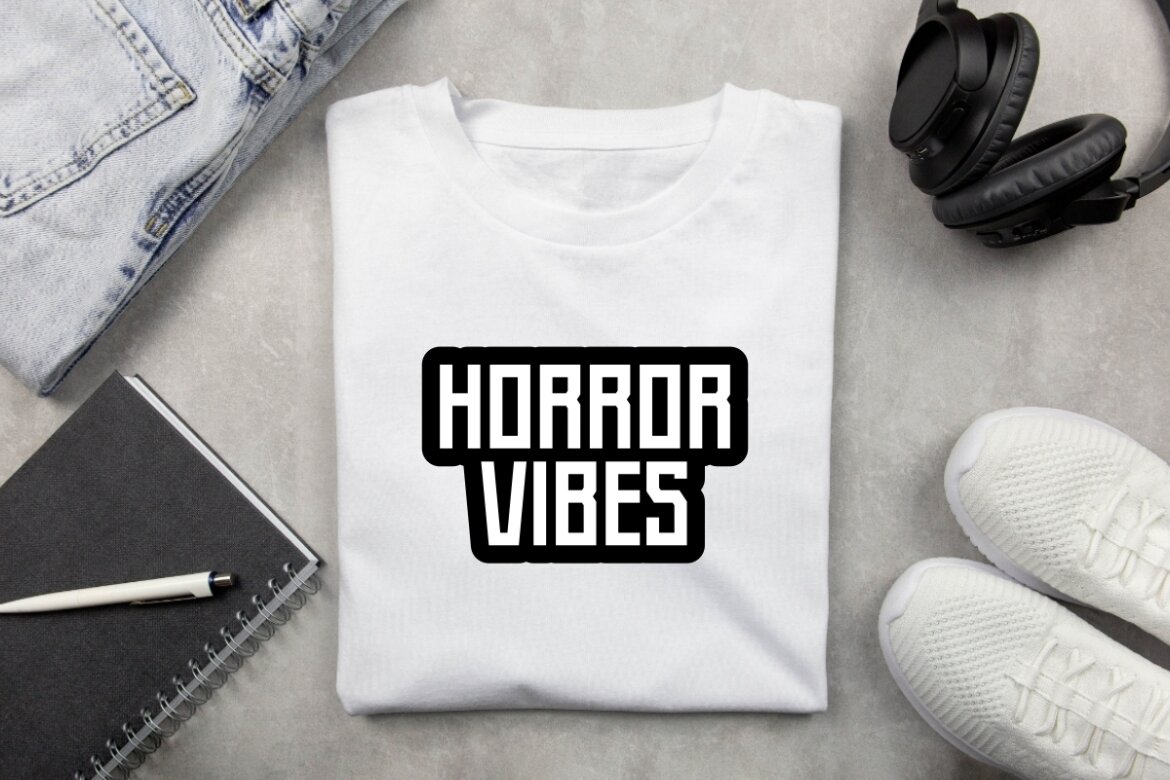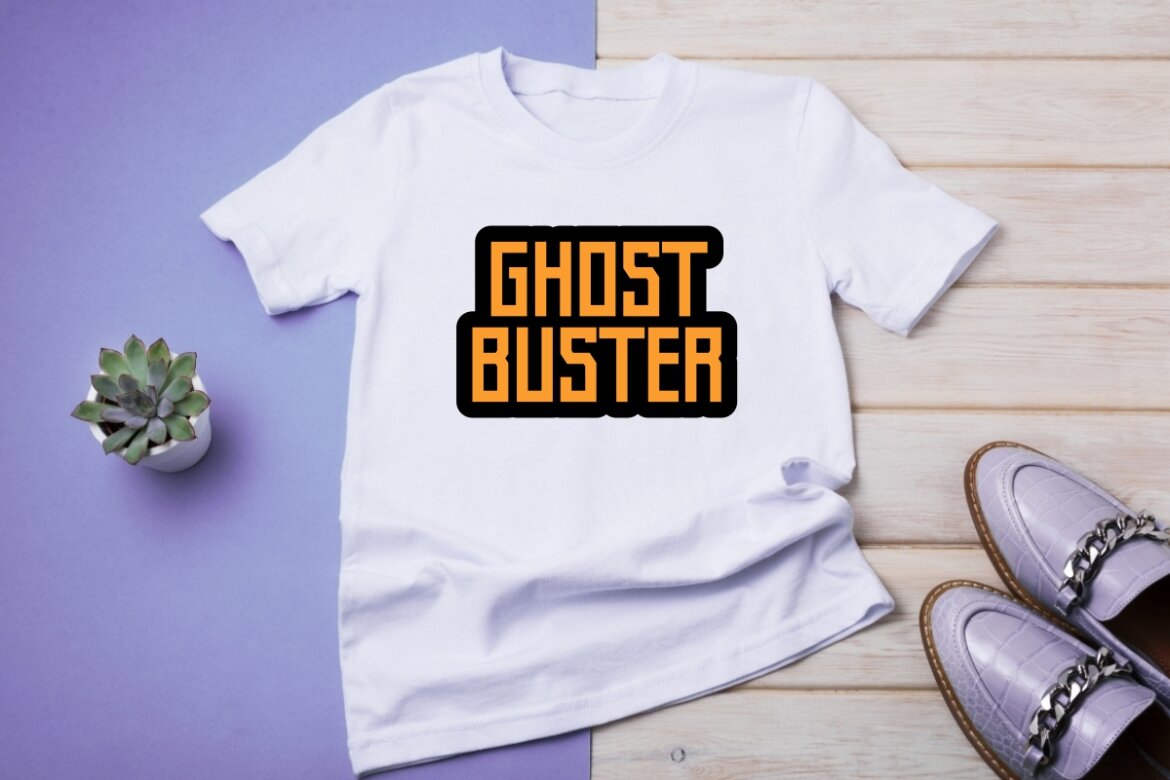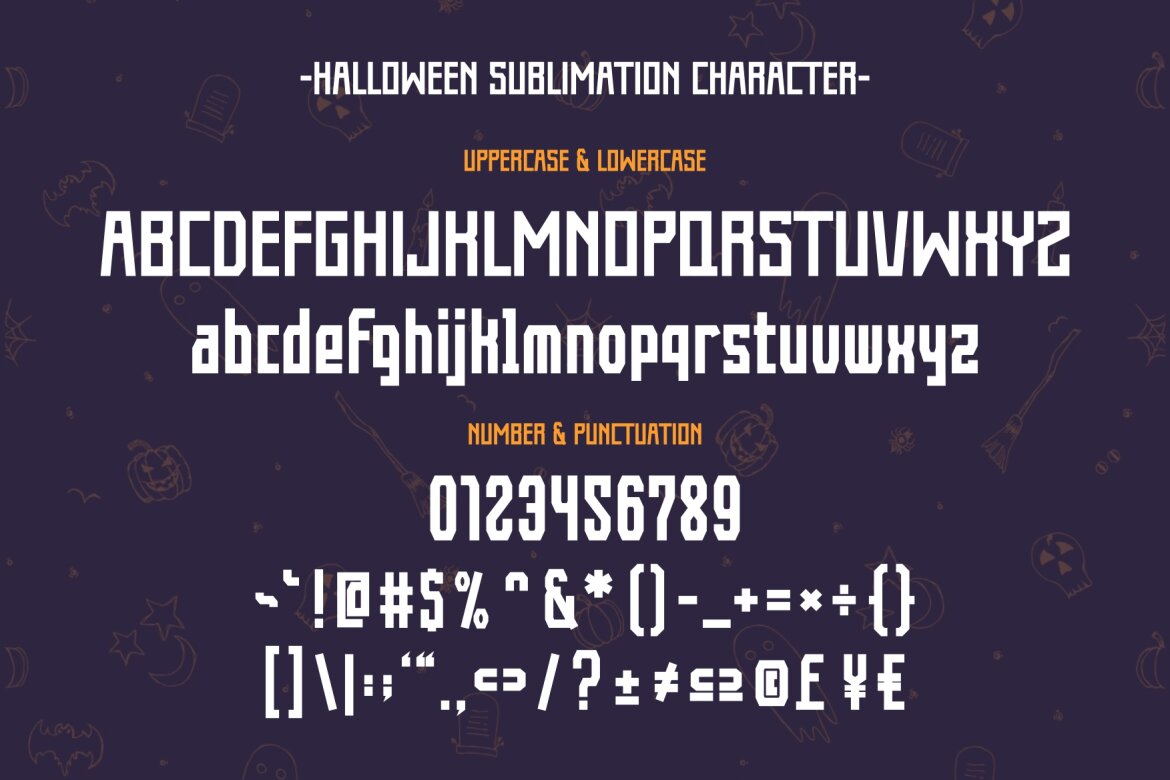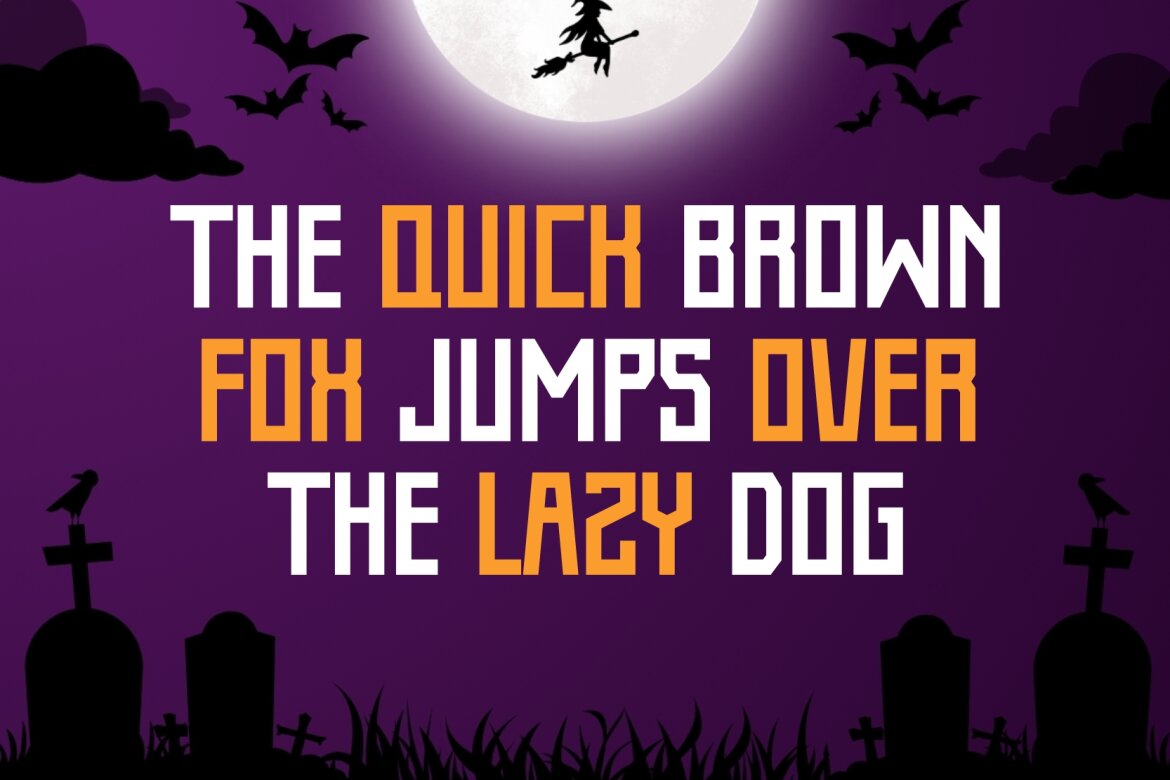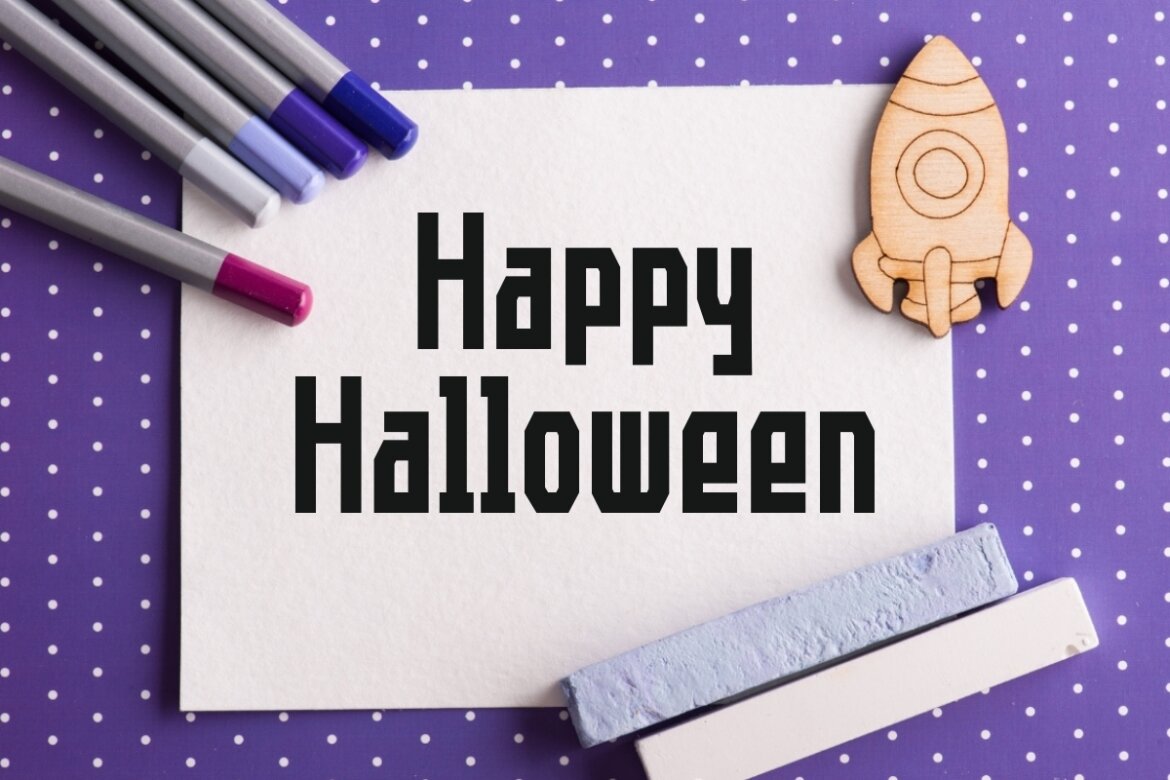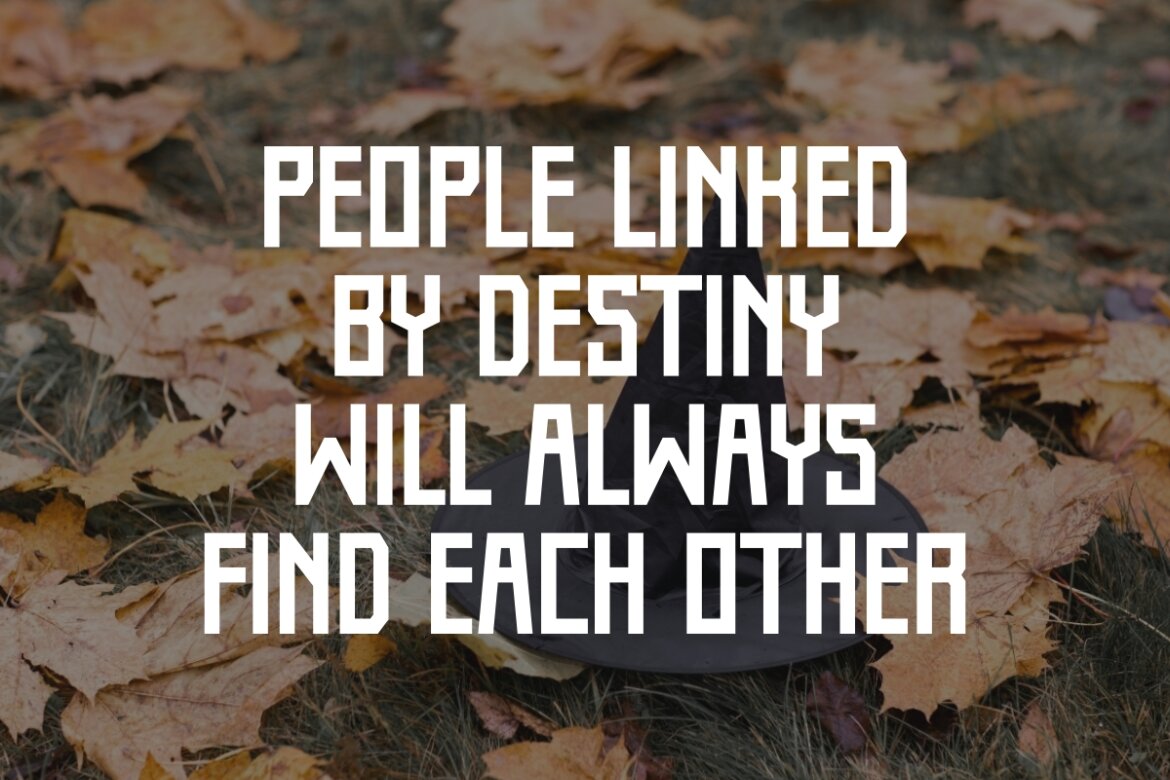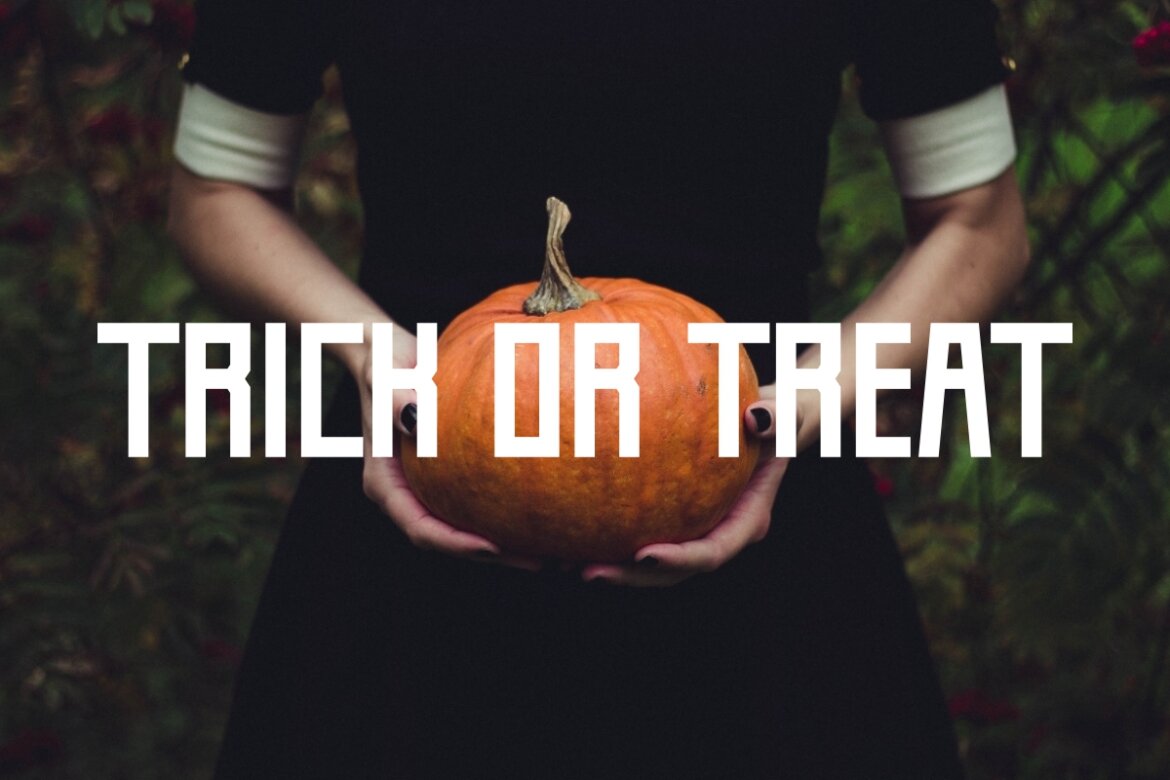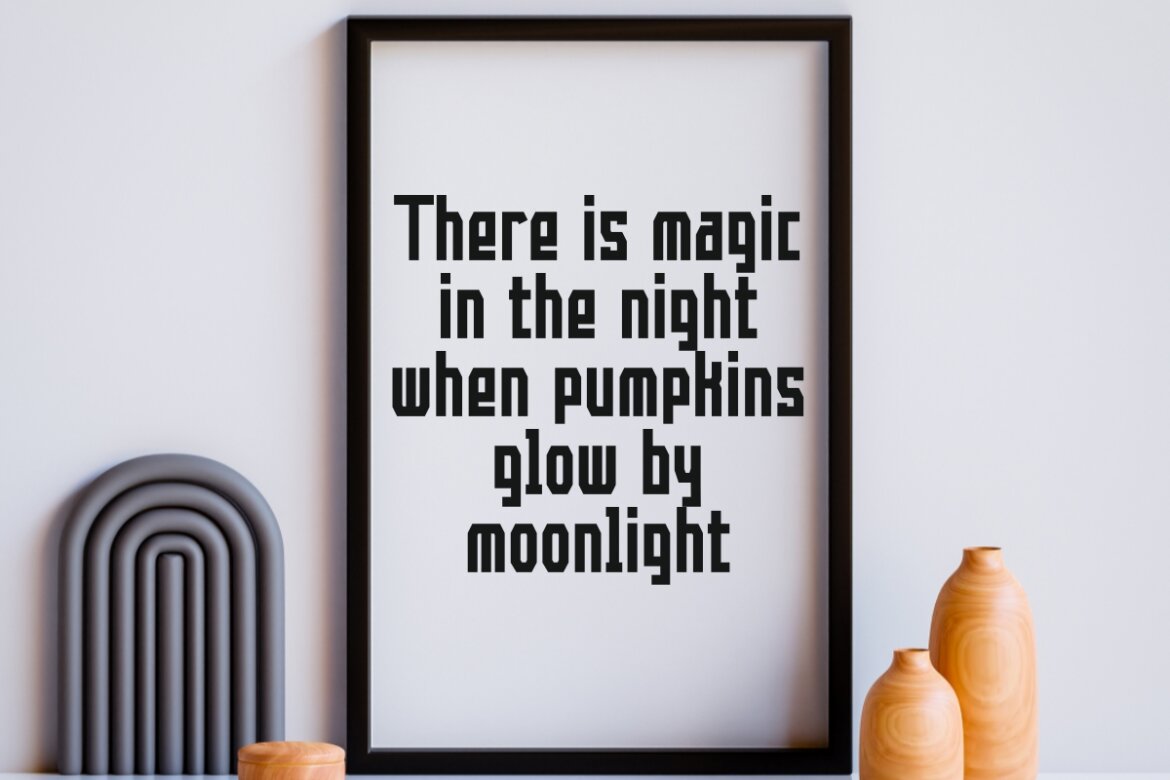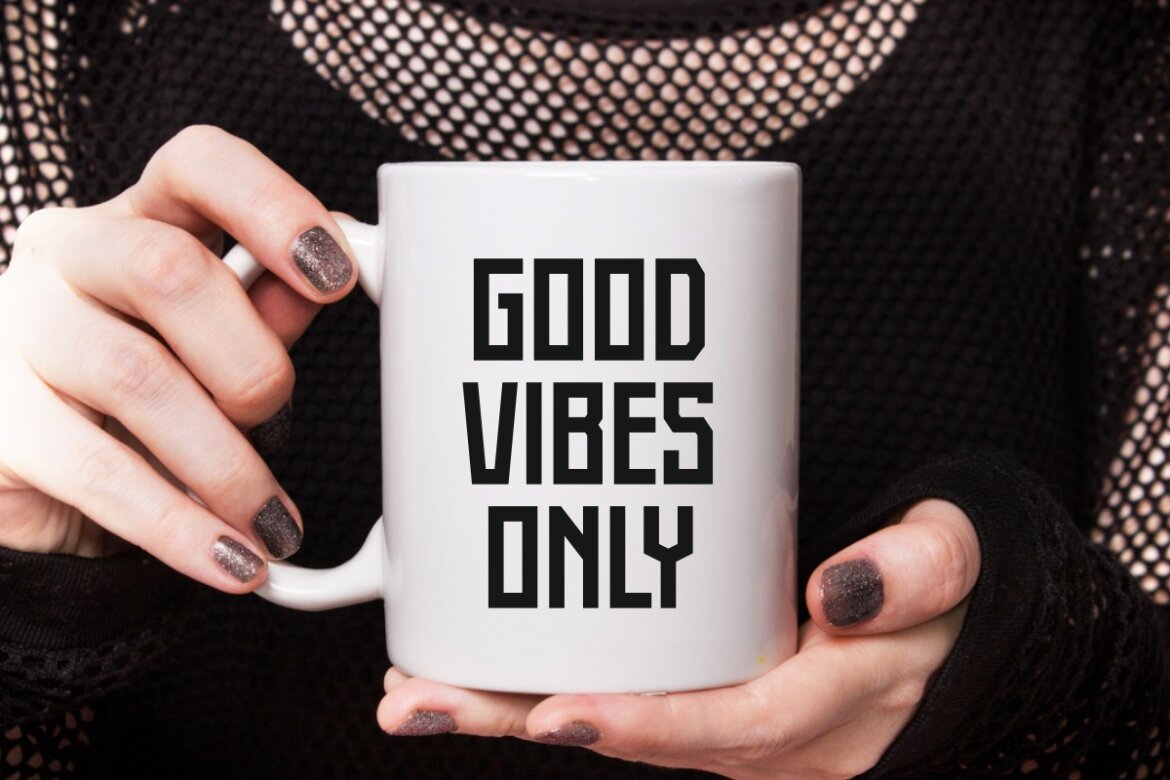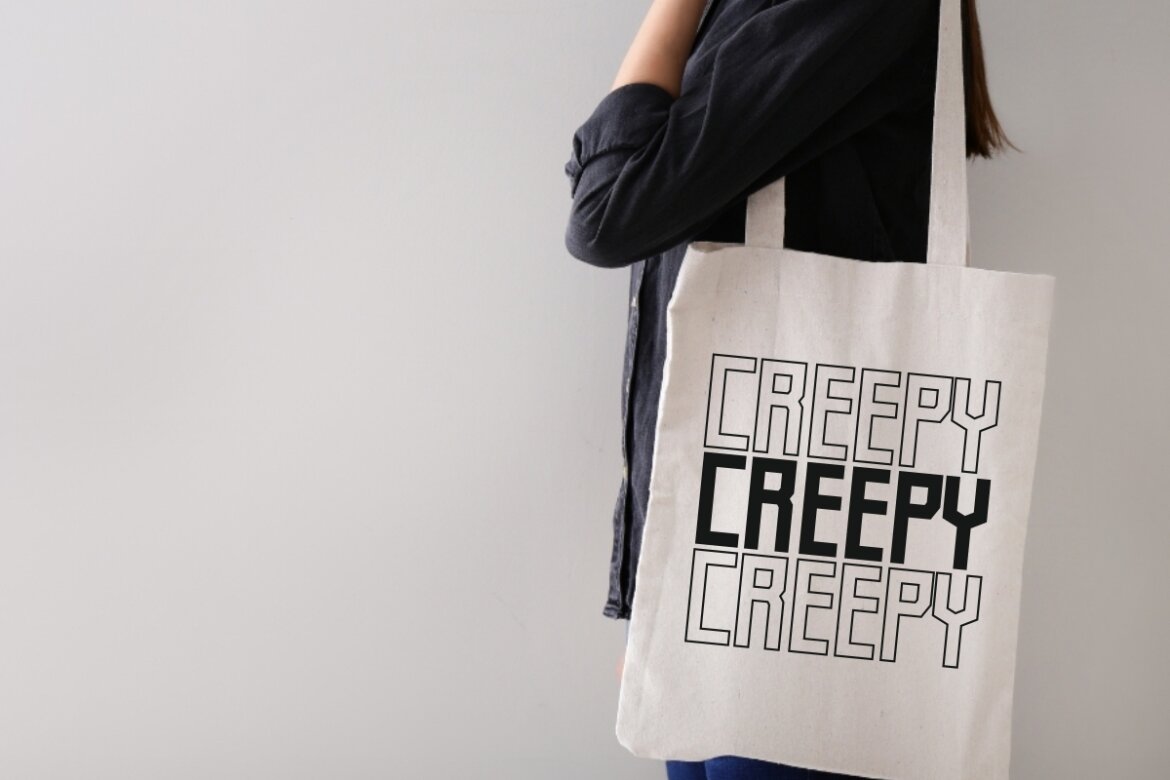
Halloween Sublimation - FREE Font
Halloween Sublimation
HALLOWEEN SUBLIMATION is the ultimate Condensed Vintage Font designed for seasonal sublimation projects and spooky apparel. This bold display typeface is perfect for high-impact holiday merchandise, Halloween posters, and event flyers, guaranteeing strong visibility and an authentic retro Halloween look.